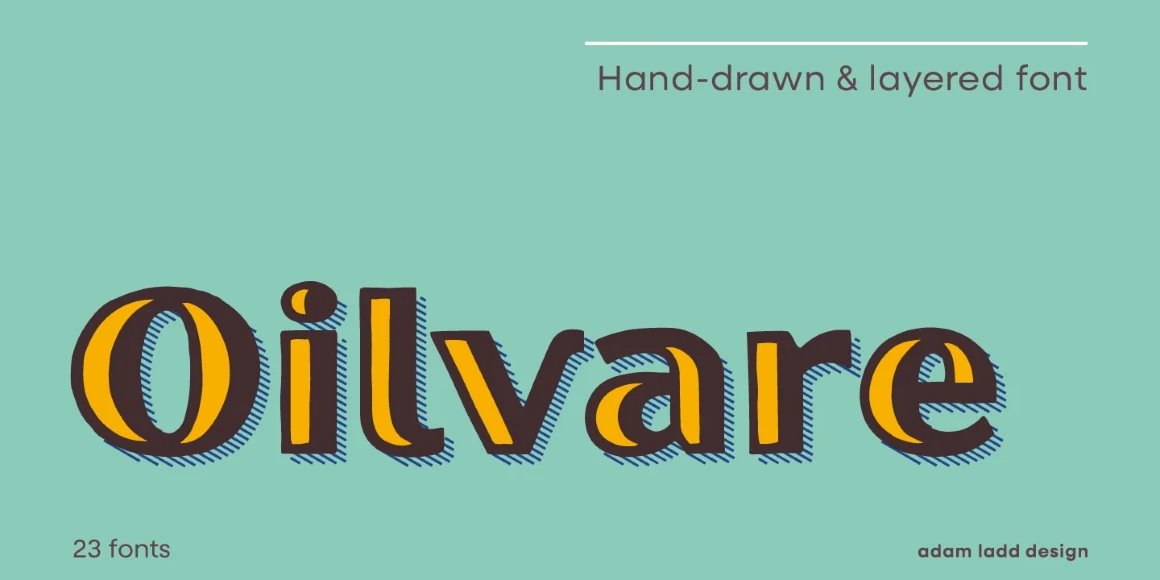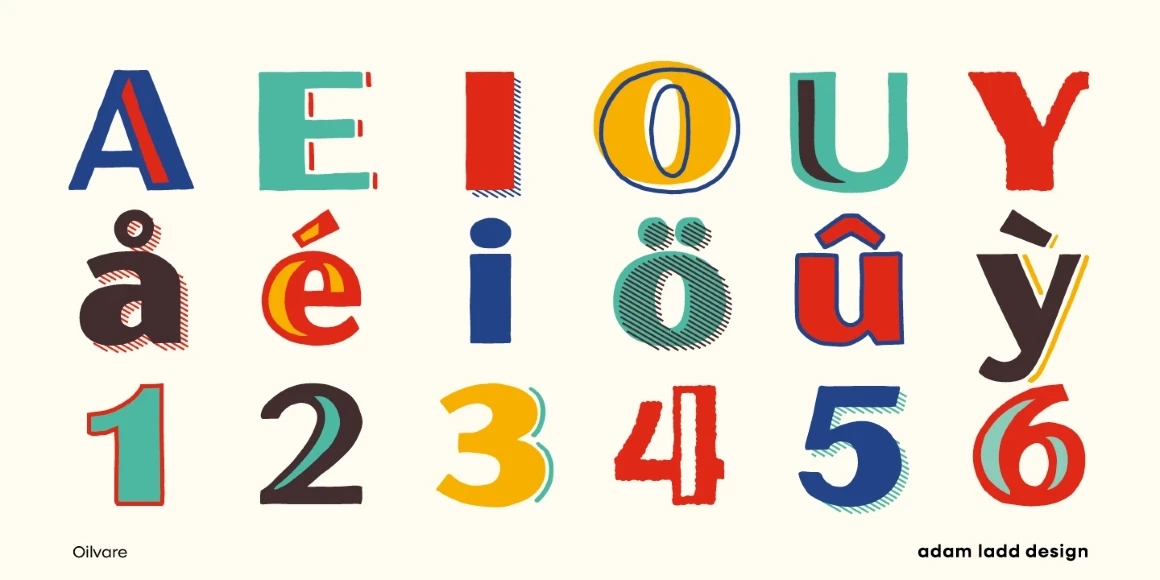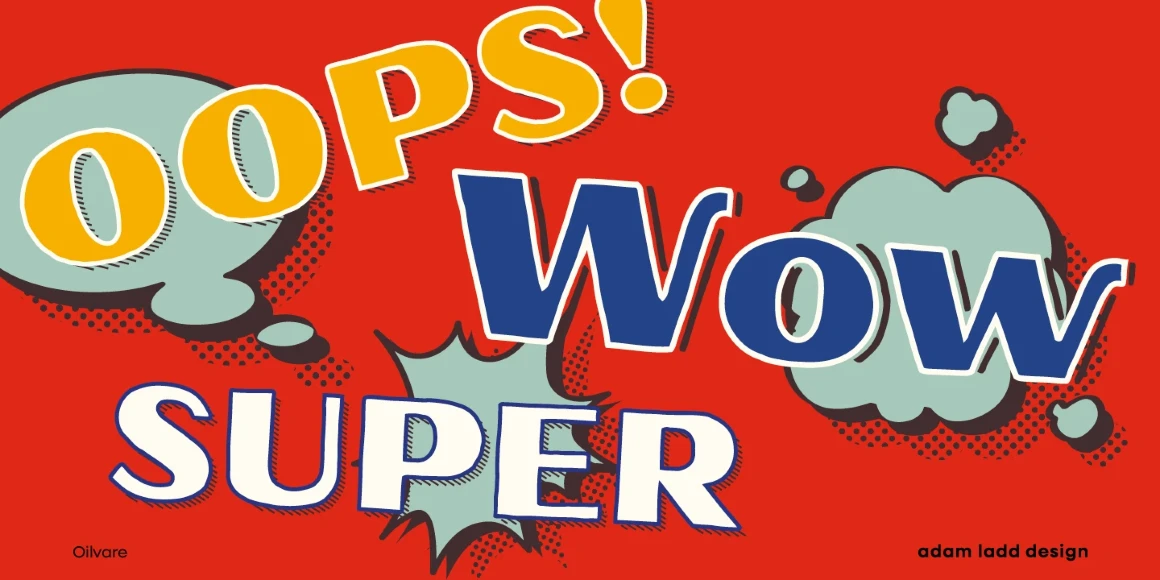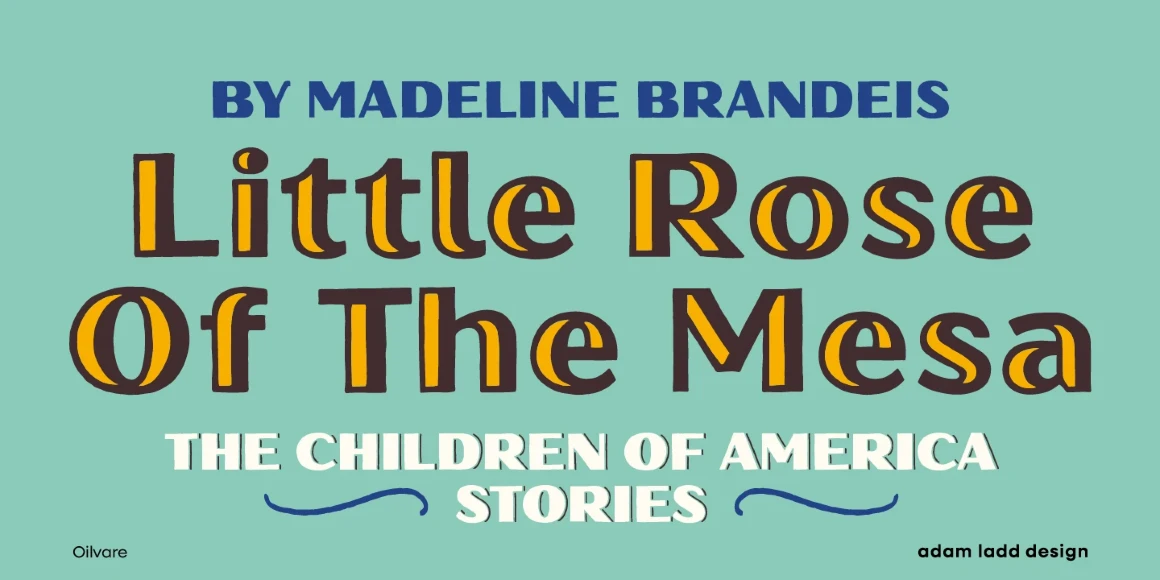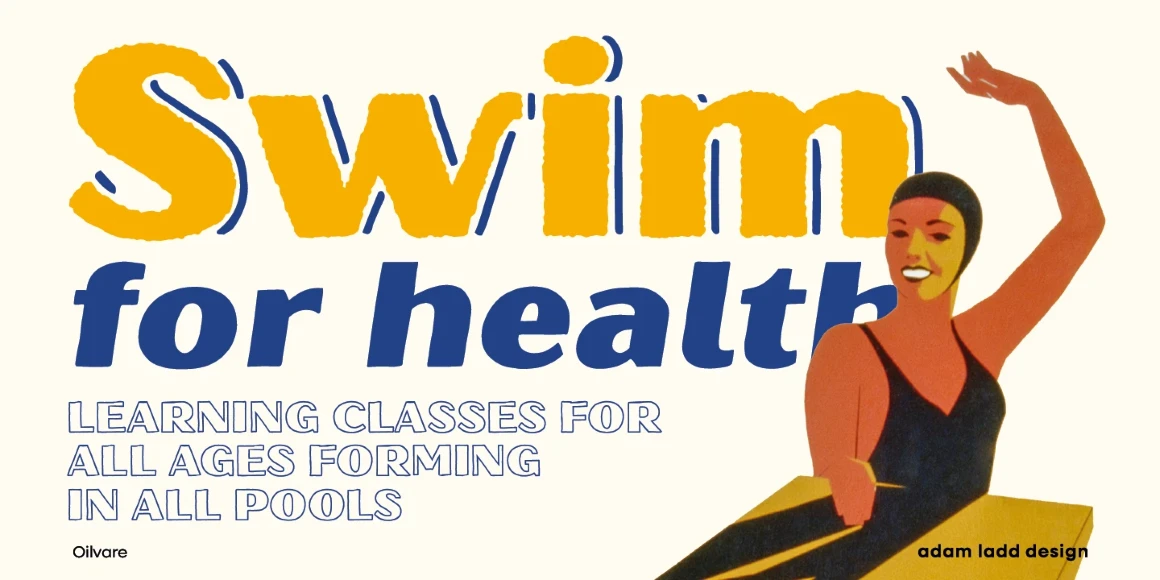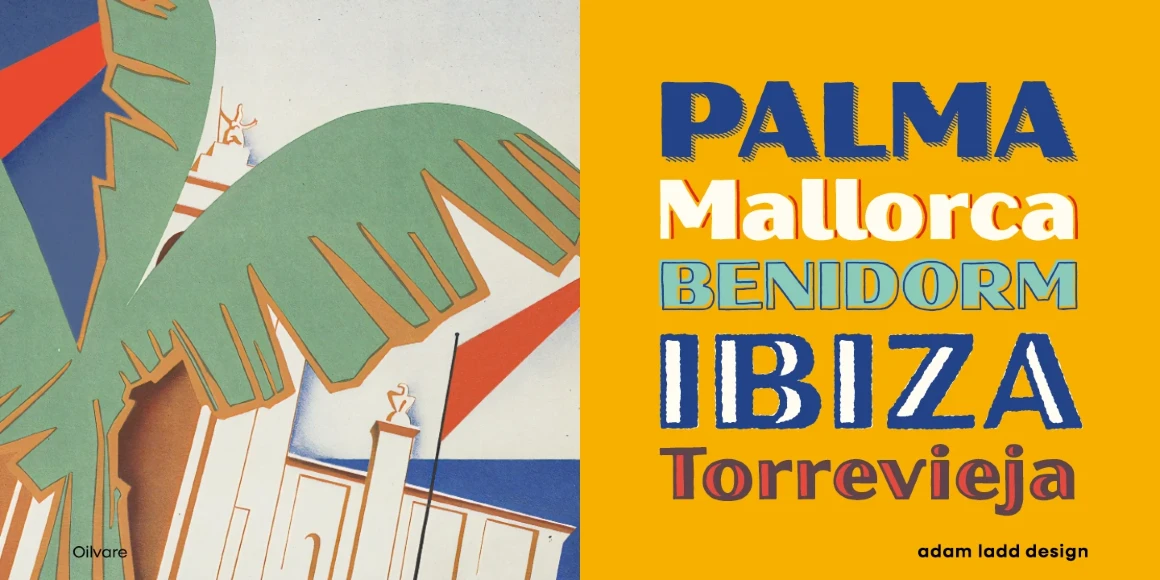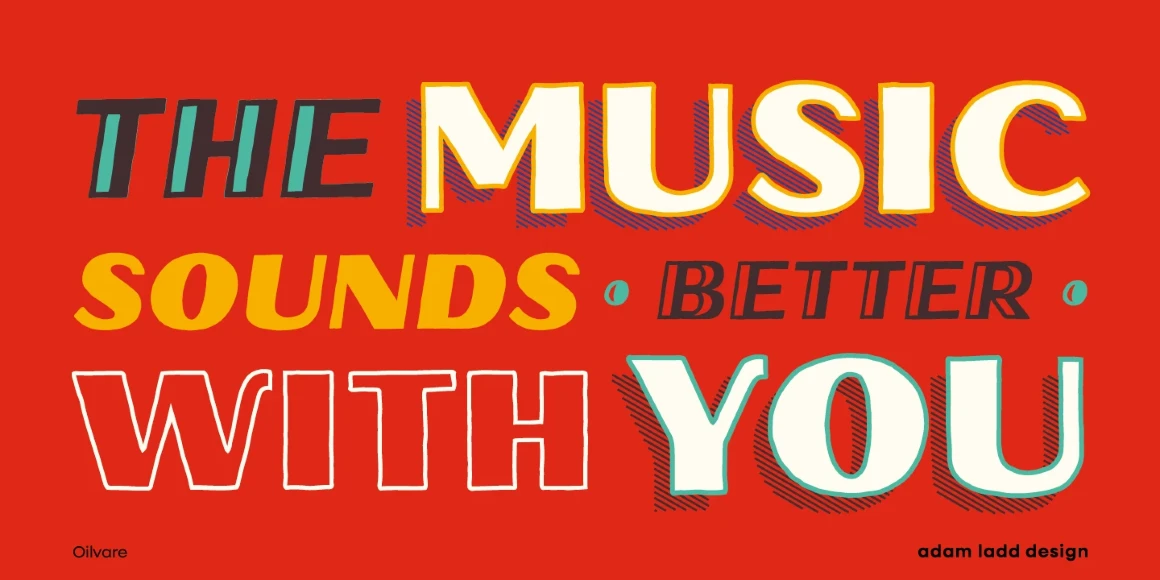
Oilvare
From Adam Ladd Design
Oilvare is a hand-drawn, layered family inspired by vintage painted signs and oil cans. While sturdy, it has a softer side — wide proportions, oval-inspired forms, curled angle strokes, and a medium contrast all help distinguish it from the typical sans serif genre. Mix, match, and layer the styles to your aesthetic liking. The separate highlight and shadow options help the typeface come alive when colors are used with the solid styles — or choose the individual styles with already added details.
Designed by Adam Ladd